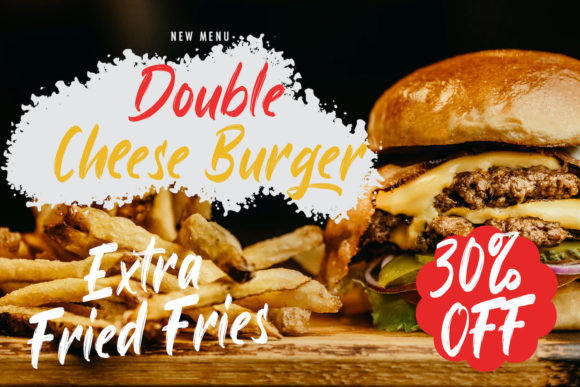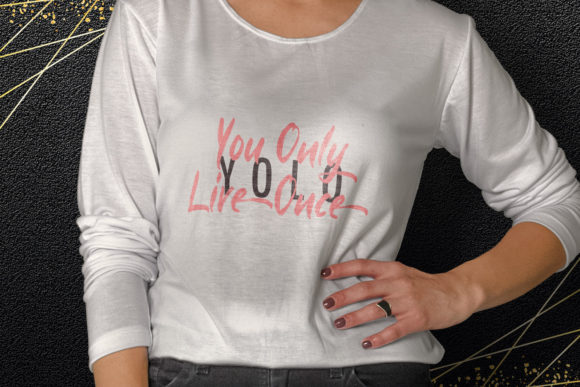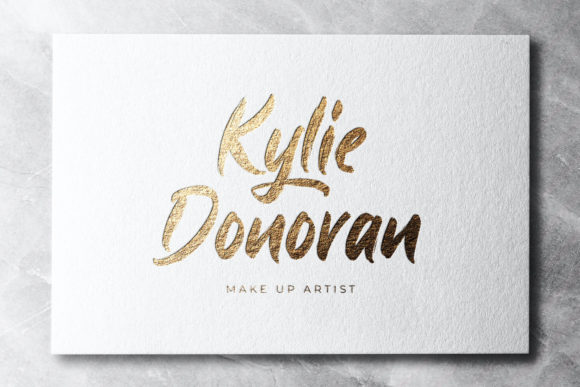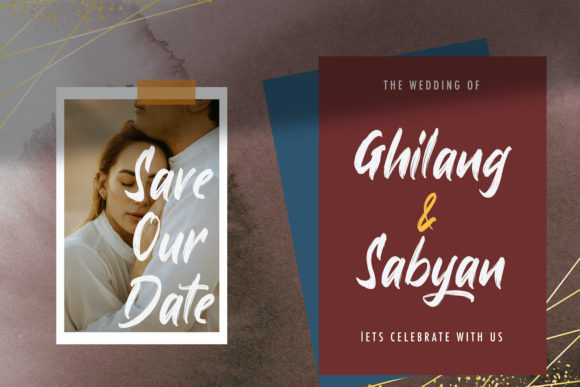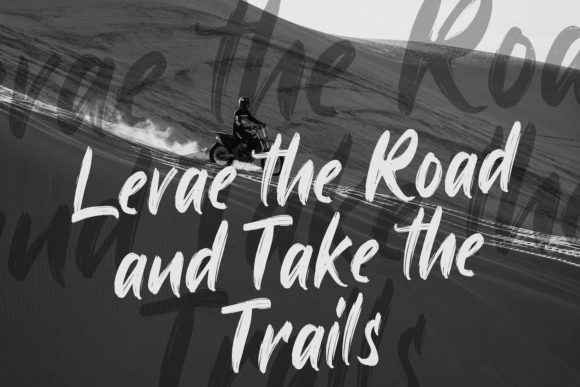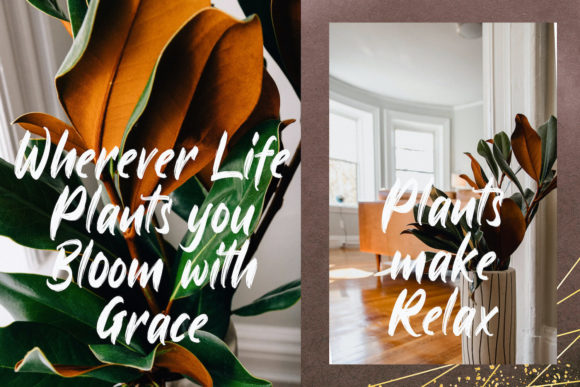
The Magic of Ayus Font: Elevate Your Designs with this Gorgeous Handwritten Font
I’ll never forget the time I was working on a project for a client who wanted a font that was both elegant and playful. I had spent hours scouring the internet for the perfect font, but nothing seemed quite right. That was until I stumbled upon Ayus Font. With its thick, flowing letters and brushed handwritten style, it instantly caught my eye and won my heart. In this article, I’ll share with you why Ayus Font is a game-changer for designers, crafters, and creative hobbyists alike.
A Personal Review of Ayus Font
What I Love About Ayus Font
- ✨ Unique and eye-catching design: Ayus Font has a distinctive, hand-brushed look that sets it apart from other fonts.
- ✅ Ease of use: This font is incredibly easy to read and works well for both headings and body text.
- 💫 Versatility: Ayus Font can be used for a wide range of design projects, from invitations and greeting cards to branding and advertising.
- 👍 High-quality: The font is well-designed and well-spaced, making it perfect for both digital and print projects.
While Ayus Font is an amazing font, there are a few things to keep in mind. 🤔 For example:
- ⚠️ Limited suitability for body text: While Ayus Font is easy to read, it’s not the best choice for long blocks of body text. It’s better suited for headings, titles, and short paragraphs.
- ⚠️ Some letters may not work well in all contexts: As with any font, some letters may not work well in all contexts. For example, the letter “Q” can sometimes look a bit awkward when used in certain words.
The Backstory of Ayus Font
While I couldn’t find any information on the exact origins of Ayus Font, it’s clear that it was designed with love and care. The font’s creator was likely inspired by the beauty of handwritten script and the elegance of traditional calligraphy. The result is a font that’s both unique and timeless.
| What is Ayus Font? | Ayus Font is a lovely, flowing handwritten font with a thick, brushed look. |
| Is Ayus Font suitable for body text? | While Ayus Font is easy to read, it’s not the best choice for long blocks of body text. It’s better suited for headings, titles, and short paragraphs. |
| Is Ayus Font available in different styles? | While Ayus Font is primarily available in one style, it does offer some OpenType features, such as glyphs and stylistic alternates, that can add more variety to your text. |